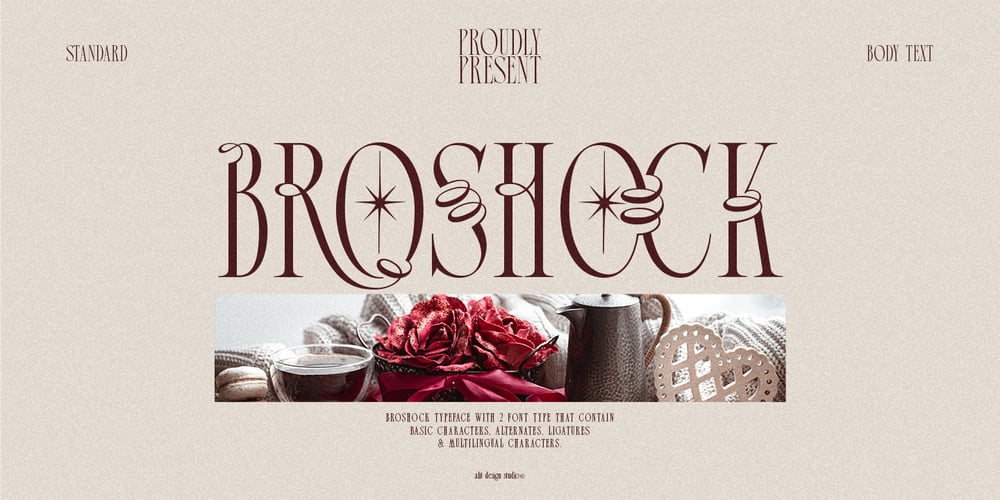
Broshock Body Font Family was designed by Alit Suarnegara and published by Alit Design. Broshock Body contains 2 styles and family package options. Elevate Your Designs with Modern Elegance Introducing Broshock Font, the epitome of contemporary sophistication and stylish versatility. This sans serif typeface boasts a tall, slim body that exudes a unique charm with its ribbon-like curves, making it an ideal choice for any design project that demands a touch of elegance and modern flair.Distinctive Design: Broshock’s tall and slender characters are enhanced with graceful curves reminiscent of flowing ribbons, providing a distinctive look that stands out in any context.Extensive Glyph Set: With 812 alternate glyphs and ligatures, Broshock offers unparalleled flexibility. Each alternate character and ligature is meticulously crafted to ensure seamless integration, allowing for endless creative possibilities.PUA Unicode: All glyphs are PUA encoded, ensuring easy access to every character and alternate, making it simple to personalize your designs without hassle.Multi-Lingual Support: Broshock comes with comprehensive multi-lingual support, making it suitable for global projects and diverse audiences. Whether your text is in English, Spanish, French, or any other language, Broshock ensures consistent beauty and readability.Perfect For:Unique Modern Posters: Create eye-catching posters that demand attention with Broshock’s sleek and stylish aesthetic. Boho Designs: Add a touch of boho elegance to your work, perfect for invitations, flyers, and decorative elements. Elegant Style Projects: Ideal for branding, magazines, and editorial design where sophistication is key.Why Choose Broshock?Broshock Font is not just a typeface; it’s a statement. Its combination of modernity, elegance, and versatility makes it an invaluable tool for designers looking to elevate their projects. Whether you’re working on a digital or print medium, Broshock adapts flawlessly, providing a high-end look that resonates with contemporary trends.Unlock the full potential of your creativity with Broshock Font – where modern elegance meets unique versatility.